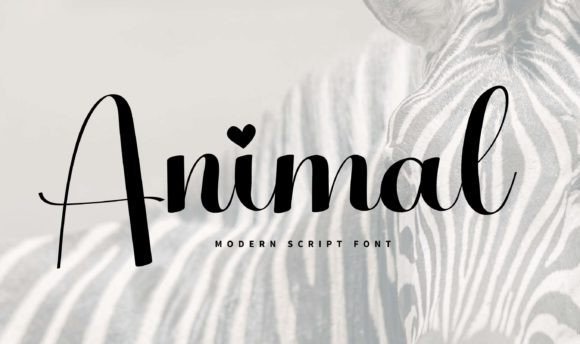
Unlock the Magic of Animal Font
Meet Animal Font, a charming and versatile handwritten font that’s perfect for adding a touch of elegance and whimsy to your designs. Whether you’re crafting a wedding invitation, a logo, or a quote, Animal Font is the perfect companion to help you bring your vision to life. Its wide range of applications makes it a valuable asset for designers, allowing them to experiment and push the boundaries of creativity.
Animal Font Key Features
- Font Styles: Animal Font offers a range of font styles, including bold, regular, italic, and bold italic, to cater to various design needs.
- Unique Characteristics: The Animal Font features a unique, hand-drawn design with intricate details and textures, adding a touch of whimsy and personality to any design.
Animal Font Review
Overall, I’m quite impressed with the Animal Font. It’s a fun, quirky addition to any design project.
- The font’s unique design is sure to grab attention. It’s perfect for projects that need a playful touch.
- The font comes in a range of weights and styles, making it versatile and easy to use.
- The character set is extensive, including a wide range of punctuation and symbols.
- The font is highly customizable, allowing designers to tweak the spacing and style to suit their needs.
- The font may be too playful for more serious or professional projects.
- The weight and style options, while extensive, may not be as detailed as some other fonts.
- The font may not be suitable for projects that require a lot of fine detail or precision typography.
Overall, I think the Animal Font is a great choice for designers looking to add a bit of whimsy to their projects. While it may have some limitations, its unique design and versatility make it a solid addition to any design library.
Getting the Most Out of the Animal Font
Some tips for getting the most out of the Animal Font include:
– Using it to create whimsical and playful designs.
– Combining it with other fonts for a unique look.
– Experimenting with different font sizes and styles to achieve the desired effect.
The Animal Font is commonly used in:
– Children’s book illustrations and designs.
– Party invitations and decorations.
– Educational materials and websites.